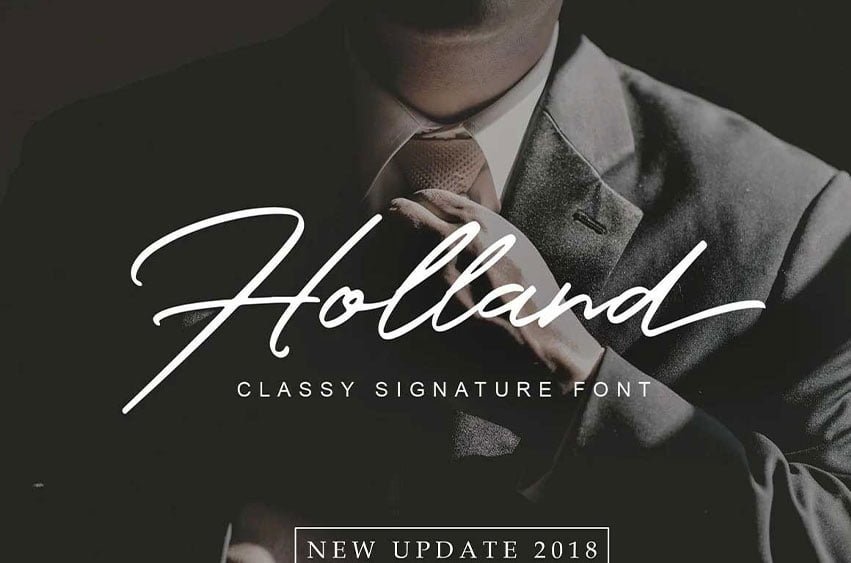
Holland Font Script is modern script that perfect for photography, signature, branding. It is so beautiful and classy, simple but strong. Holland is one of most wanted font 2017-2018.